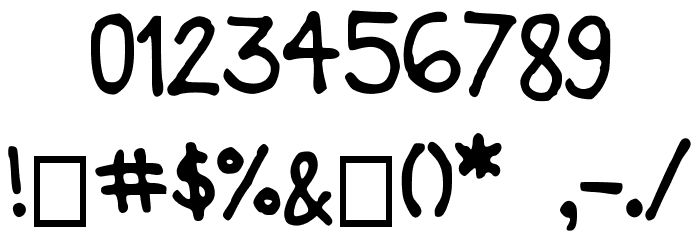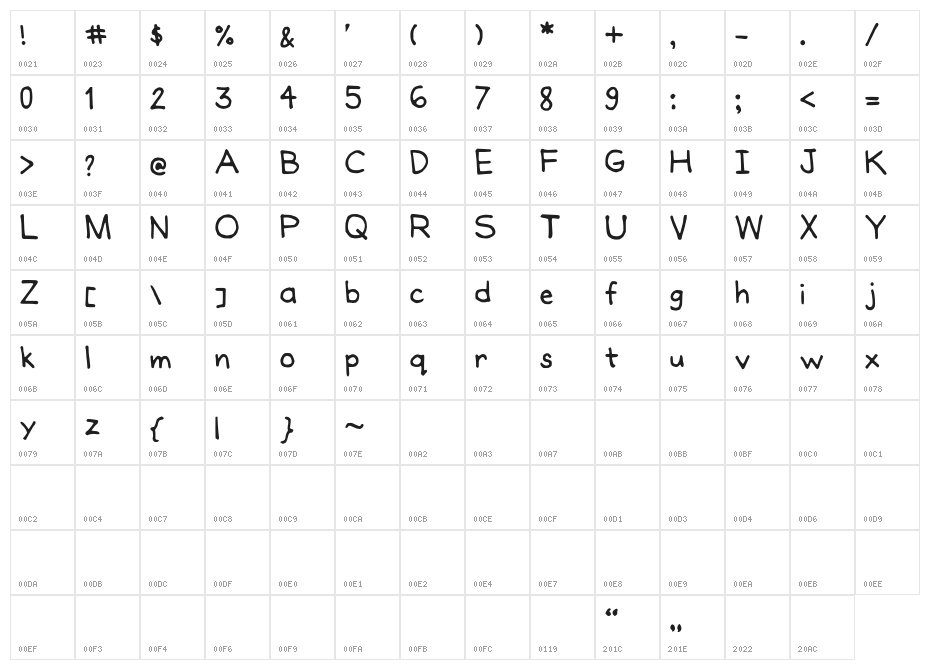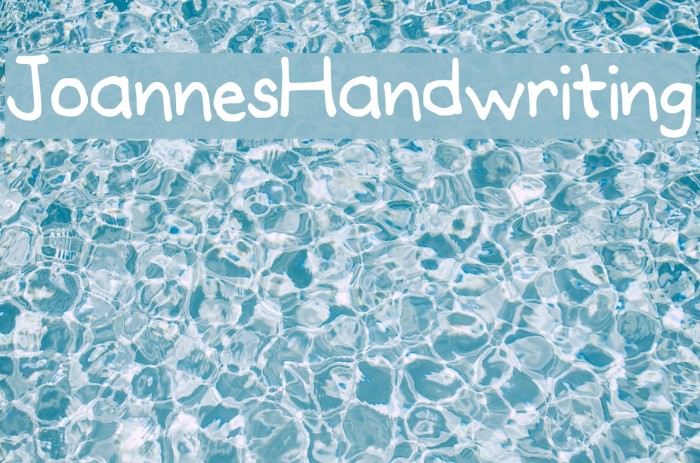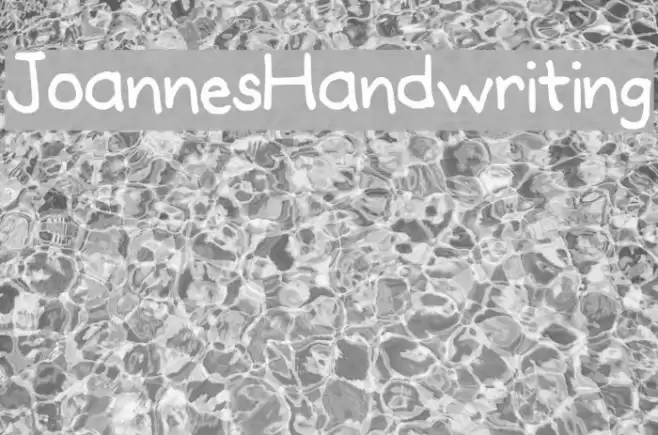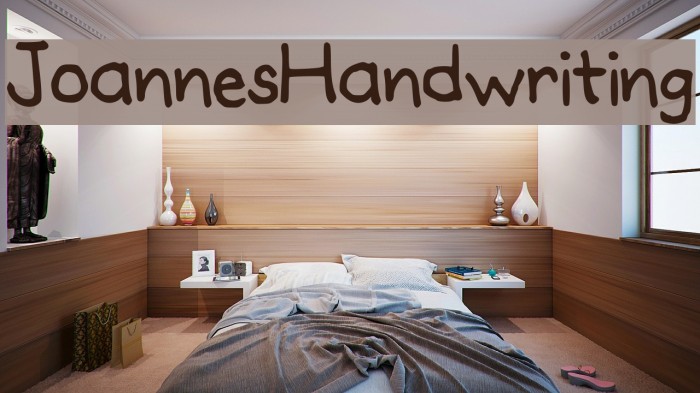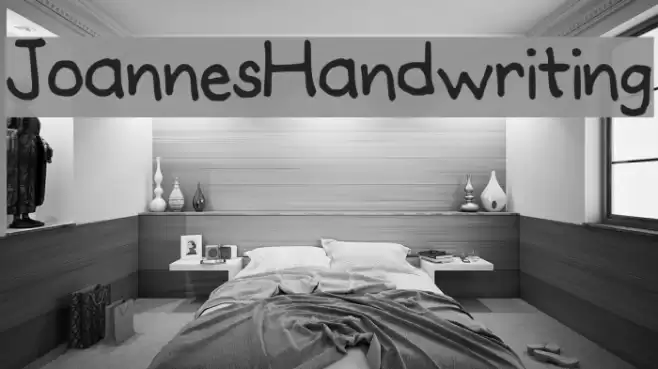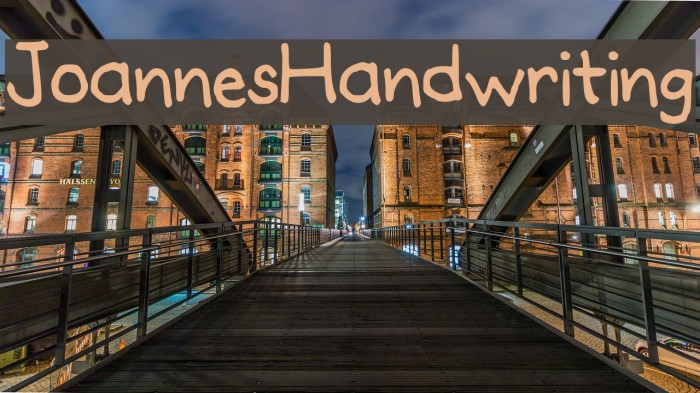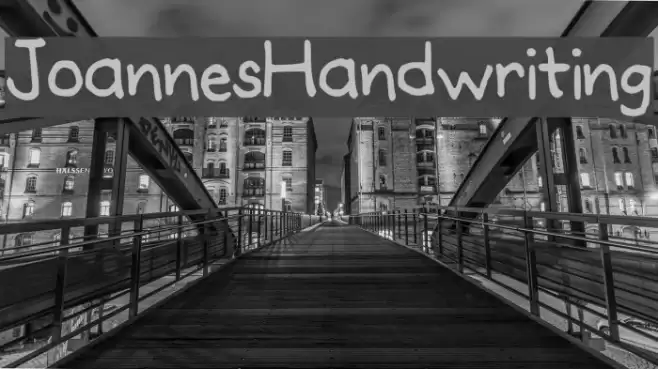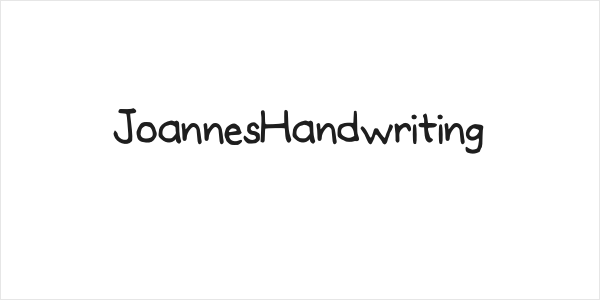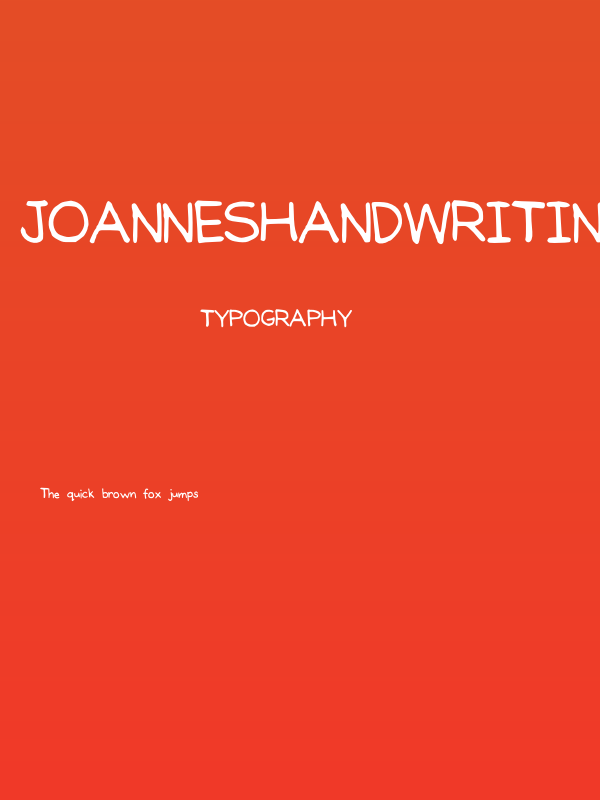
JoannesHandwriting Font
JoannesHandwriting Description
This font exhibits a playful and casual handwritten style, characterized by its rounded and slightly irregular letterforms. The strokes are consistent in thickness, giving it a uniform appearance while maintaining a sense of spontaneity. The uppercase letters are bold and prominent, while the lowercase letters are more relaxed and flowing. The numerals are clear and easy to read, matching the overall informal aesthetic. Special characters are included, maintaining the same playful style, making this font versatile for various creative projects.
| Proposed Projects | Ideal for greeting cards, children's books, casual invitations, and playful branding. |